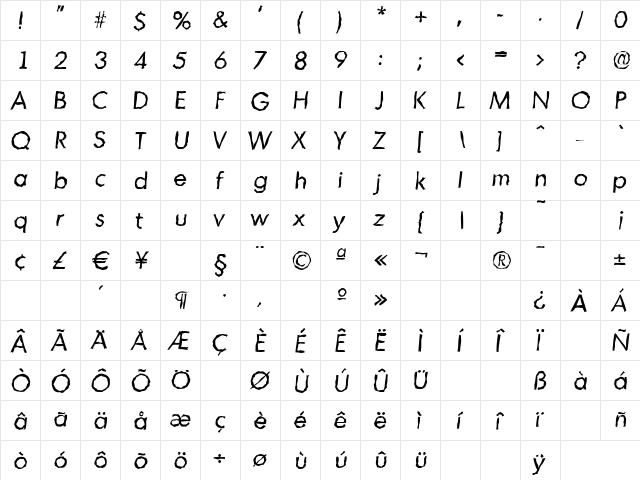
MontrealRandom Italic
Design Context for MontrealRandom Typeface
MontrealRandom takes a measured approach to typography — its balanced proportions and neutral character make it a reliable workhorse for both digital and print work. The slanted form adds forward momentum and visual energy.